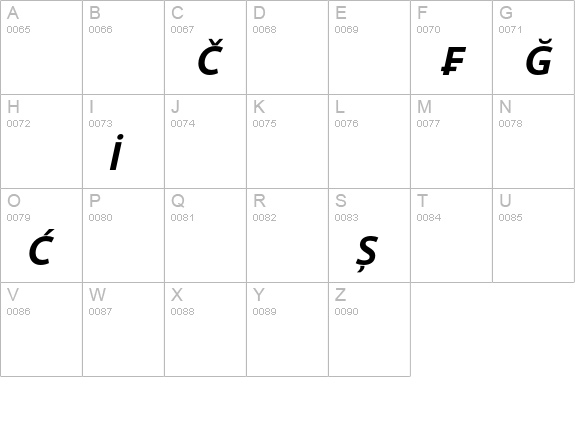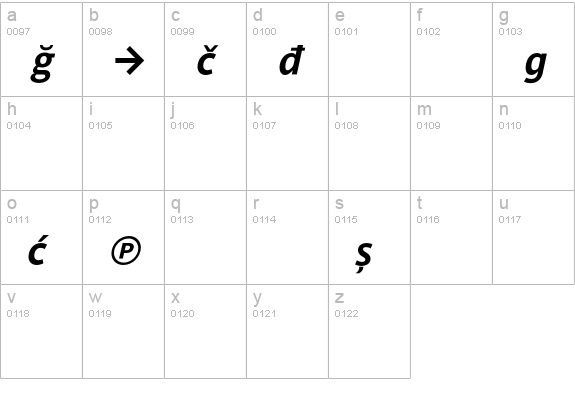
Parisine-BoldItalicAlternate Font Details
Parisine-BoldItalicAlternate is a stunning font that exudes elegance and sophistication. With its sleek and stylish design, this font is perfect for adding a touch of class to any project. The bold and italicized letters create a unique and eye-catching look that is sure to make a statement. What sets Parisine-BoldItalicAlternate apart is not only its impeccable design but also the fact that it is free to download. That's right, this amazing font is available for free at FontsMarket.com. Whether you're a professional designer or just someone looking to spruce up their personal projects, Parisine-BoldItalicAlternate is an excellent choice. With its alternate characters, this font offers even more versatility and creativity. You can easily switch between different letterforms to find the perfect combination that suits your needs. Whether you're designing a logo, creating a poster, or crafting a wedding invitation, Parisine-BoldItalicAlternate has got you covered. The high-quality and attention to detail in Parisine-BoldItalicAlternate is evident in every curve and stroke. The font is meticulously crafted to ensure that every character is visually appealing and legible. Its boldness adds a touch of confidence and strength to your designs, while the italicized style adds a touch of elegance and sophistication. Don't miss out on the opportunity to enhance your designs with this remarkable font. Download Parisine-BoldItalicAlternate for free at FontsMarket.com and unleash your creativity today. Whether you're a seasoned designer or just starting out, this font is sure to elevate your projects to new heights.